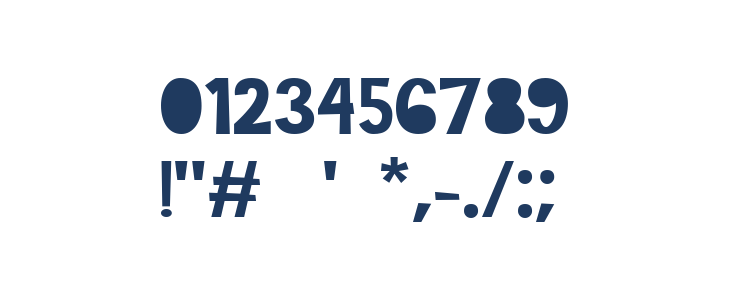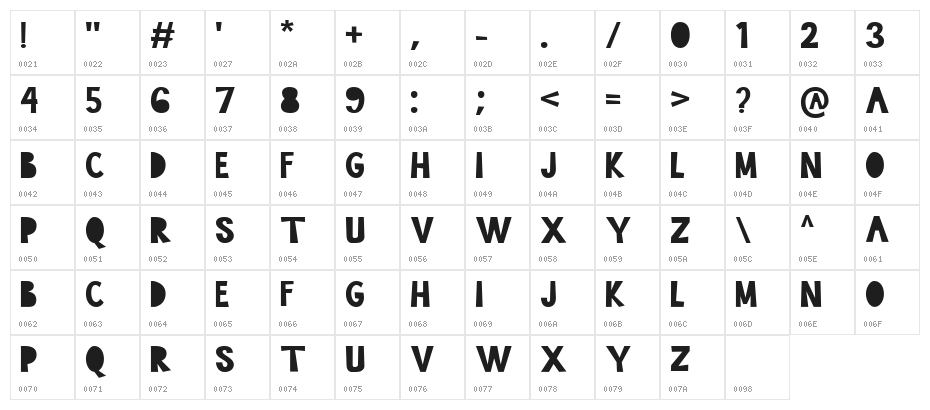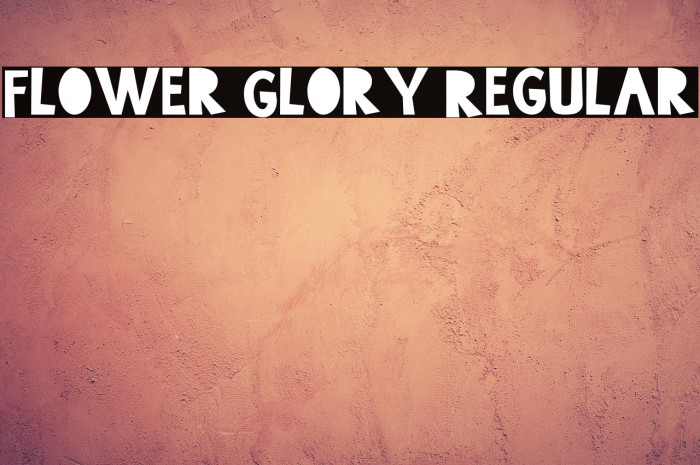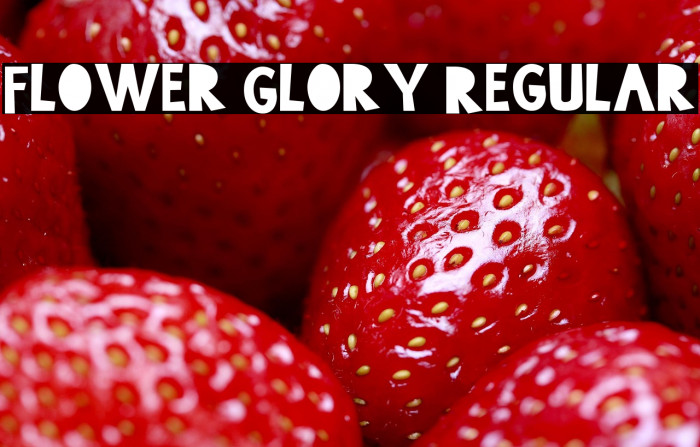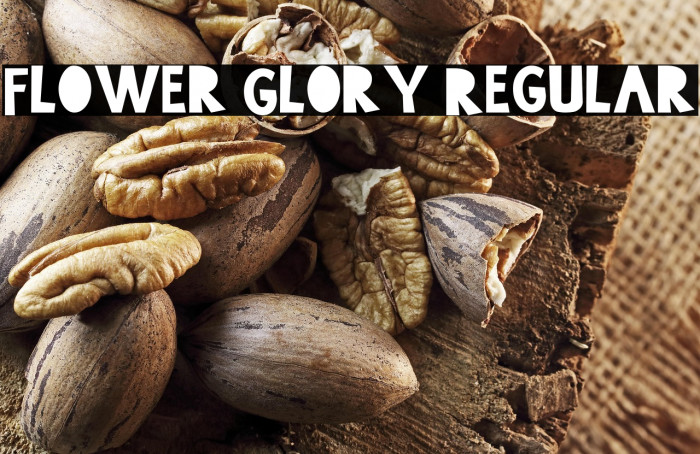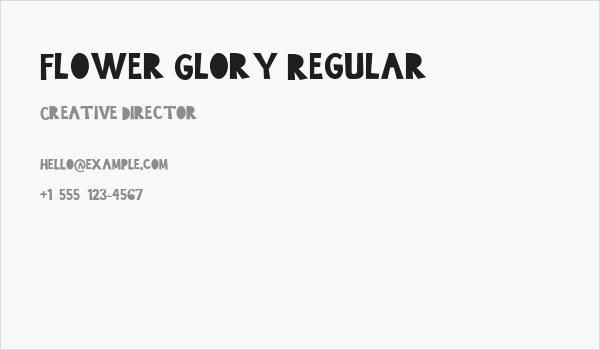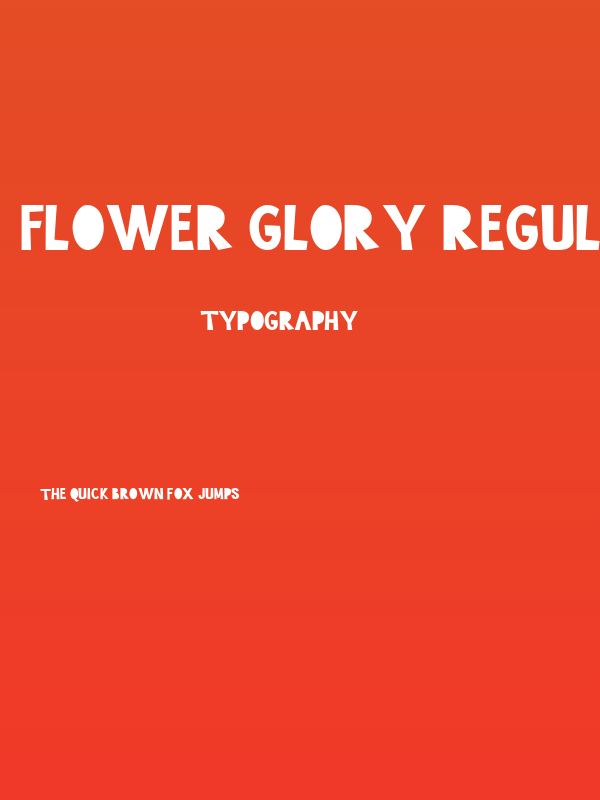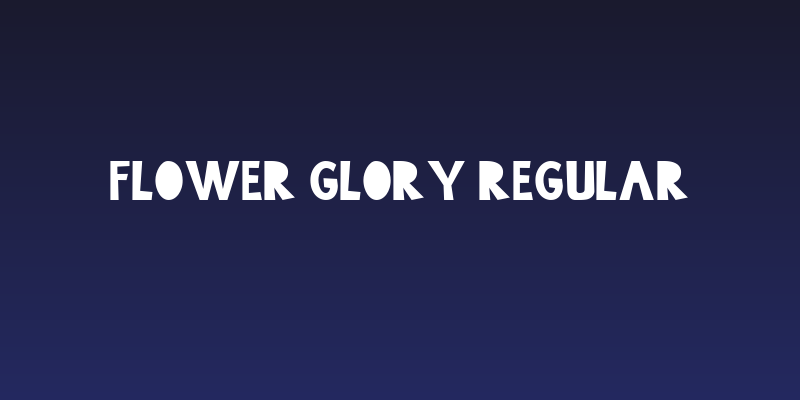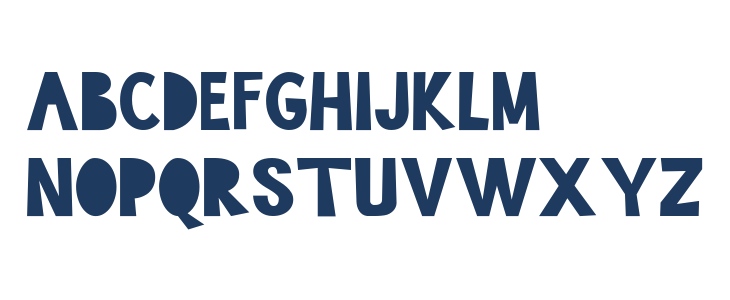
Flower Glory Regular Font
Flower Glory Regular Description
This font features a bold and playful design with a distinctive, hand-drawn appearance. The characters are thick and slightly irregular, giving them a whimsical and informal feel. The uppercase letters are particularly striking, with exaggerated curves and angles that add to the font's unique personality. The numbers and special characters maintain this playful style, making the font suitable for creative and fun projects. Its boldness ensures high visibility, making it ideal for attention-grabbing designs.
Overall StylePlayful, Whimsical
Proposed ProjectsIdeal for children's books, posters, party invitations, and playful branding.